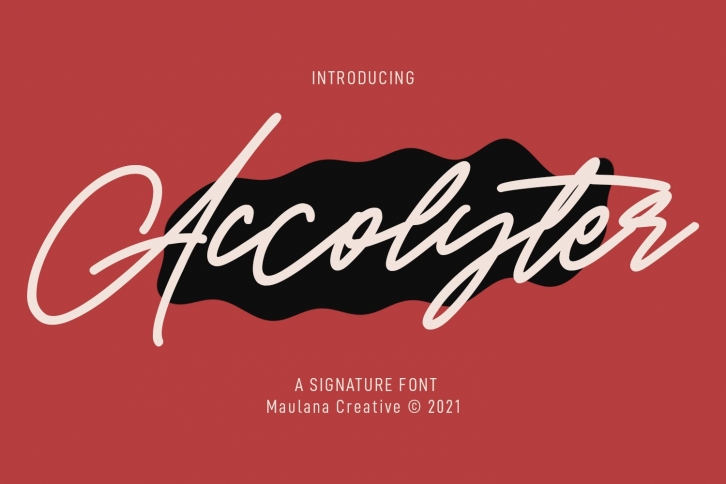
Accolyter Signature is a great font that was designed by Maulana Creative. Imagine the amount of combinations you can create using this font! The archive is 16.90 MB and it was released on August 23, 2021. Accolyter Signature looks beautiful on wedding invitations, greeting cards, logos, posters, labels, t-shirt designs, logos, business cards and is perfect for use in ink or watercolor works, fashion, magazines, packaging and food menus, children's books and more!